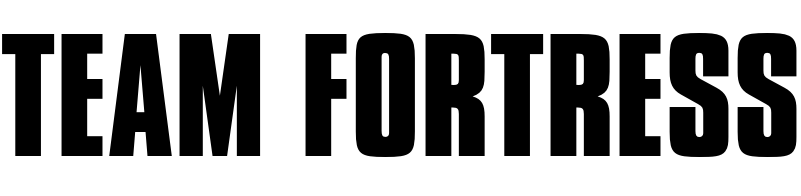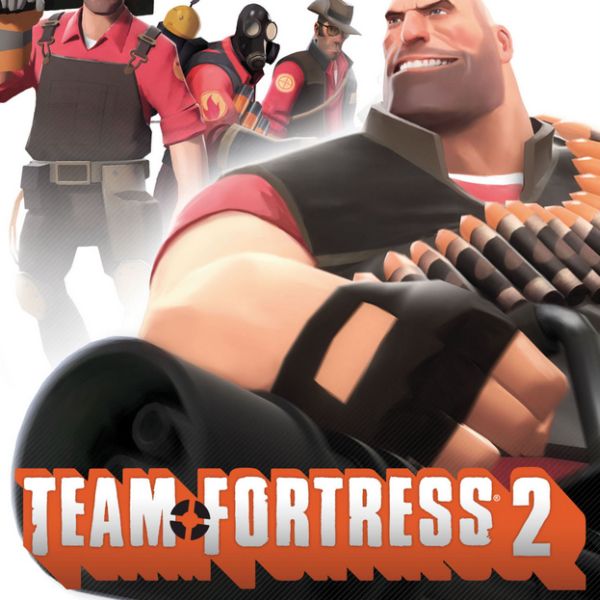
Team Fortress 2 Font
Fonts in UseTeam Fortress 2 is a popular first-person shooter game developed by Valve Corporation. It features a variety of characters with unique abilities and gameplay styles and focuses on team-based objectives and gameplay modes.
The font used for the game logo is probably Compacta Bold, a condensed sans serif typeface designed by Fred Lambert. View more details about it here.